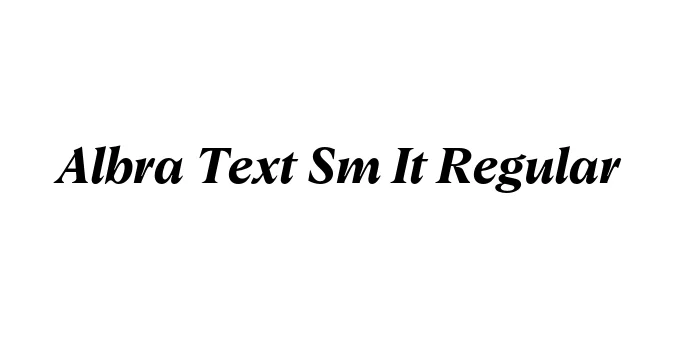
Albra Text Sm It Regular
Designed by BumbumType (Valerio Dell’Edera)
Albra Text Sm It Regular is a specialized optical size within the broader Albra family, meticulously engineered for high legibility at smaller point sizes. Created by the foundry BumbumType, this typeface family bridges the gap between classic high-fashion serifs and functional book typography. The 'Sm It' (Small Italic) Regular variant provides a sophisticated, rhythmic slant that maintains structural integrity and clarity even when space is limited or the text is dense.
The design features refined serifs and balanced proportions, drawing inspiration from 20th-century editorial aesthetics while utilizing modern digital precision. It is characterized by its elegant curves and moderate contrast, making it a favorite for designers who require a font that feels both timeless and contemporary. Whether utilized in complex print layouts or high-resolution digital interfaces, Albra Text Sm It Regular adds a layer of professional polish and editorial grace to any project.
Albra Text Sm It Regular Best Uses
Perfect for body copy, captions, and sidebars in magazines.
Highly legible for long-form reading in printed literature.
Adds an upscale, sophisticated feel to luxury brand identities.
Excellent for digital journals and long-form editorial websites.